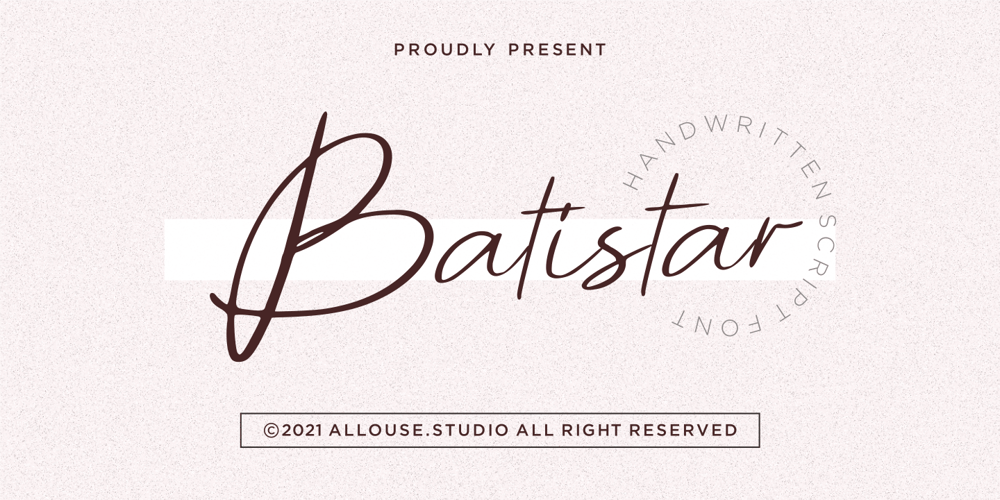
Batistar Font Family was designed by Fachrizal Yusuf and published by Allouse Studio. Batistar contains 1 styles and family package options. Batistar is perfect for any tittles, logo, product packaging, branding project, magazine, social media, wedding, or just used to express words above the background.Batistar also come with Multi-Lingual Support.Enjoy the font, feel free to comment or feedback, send me PM or email.